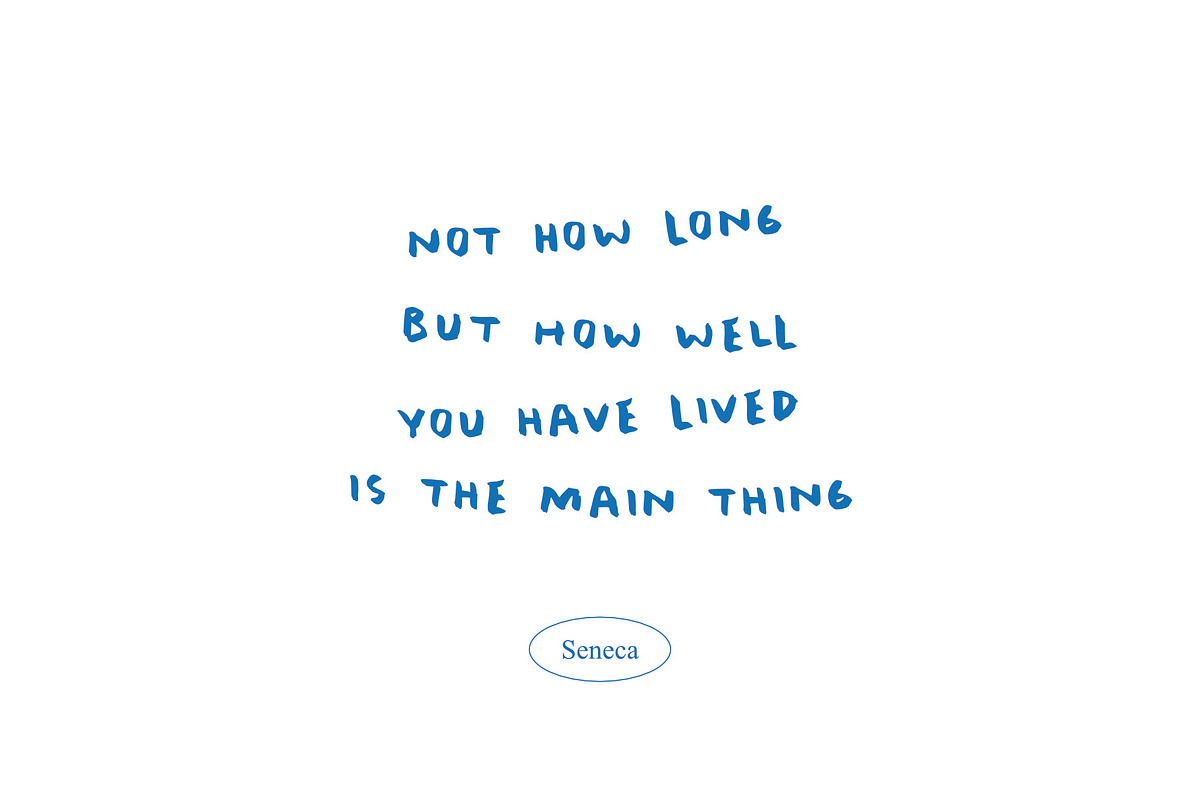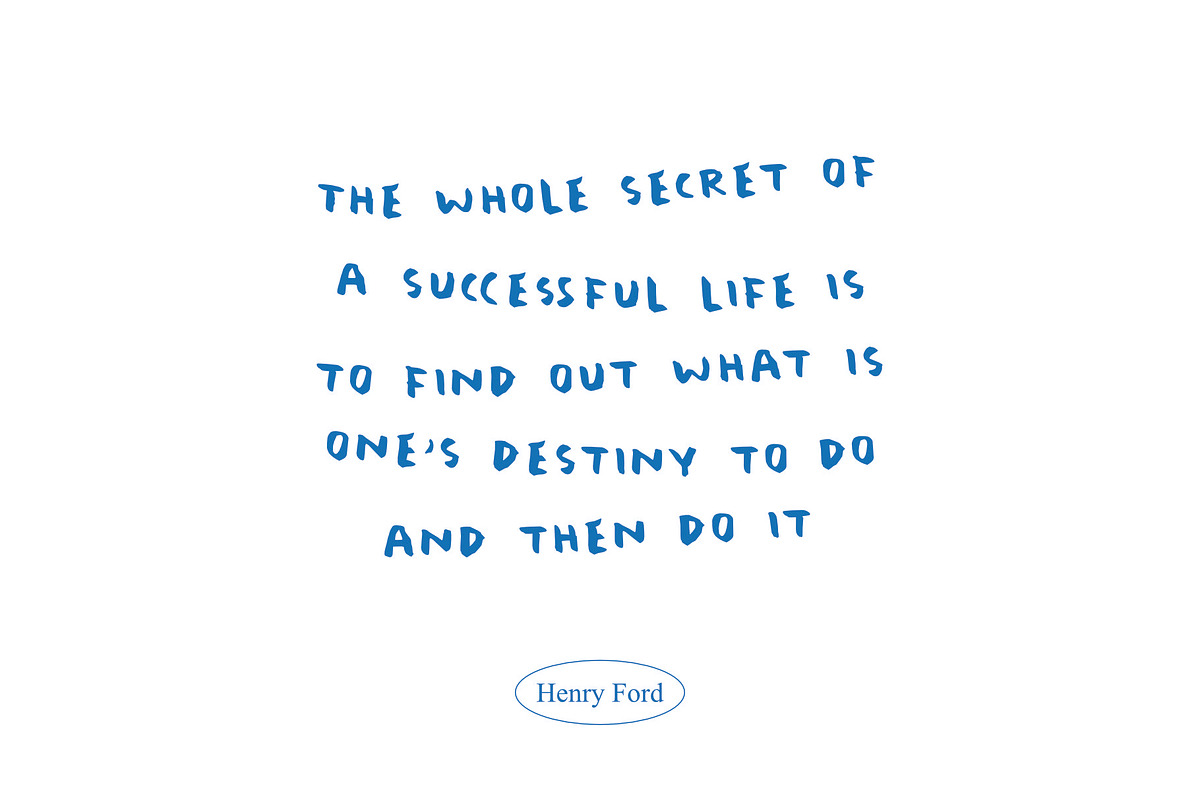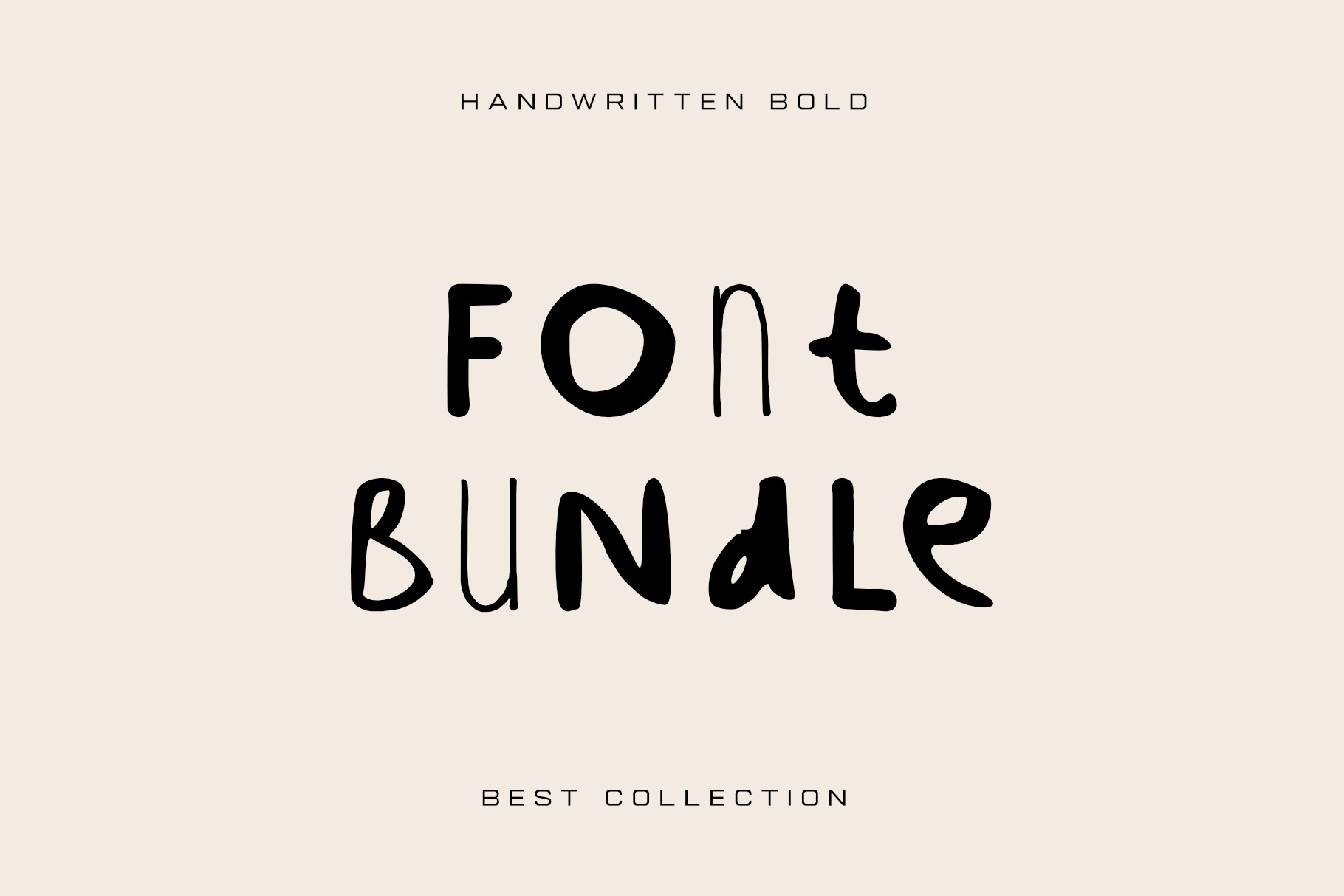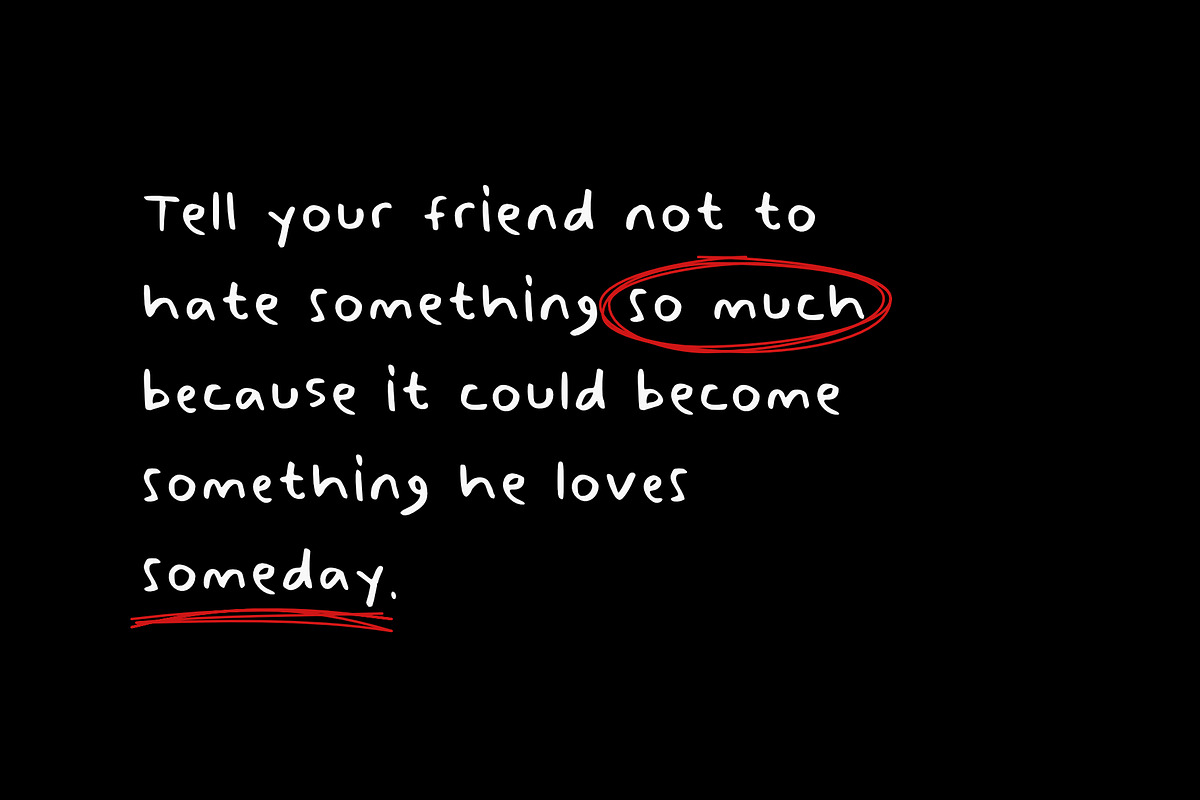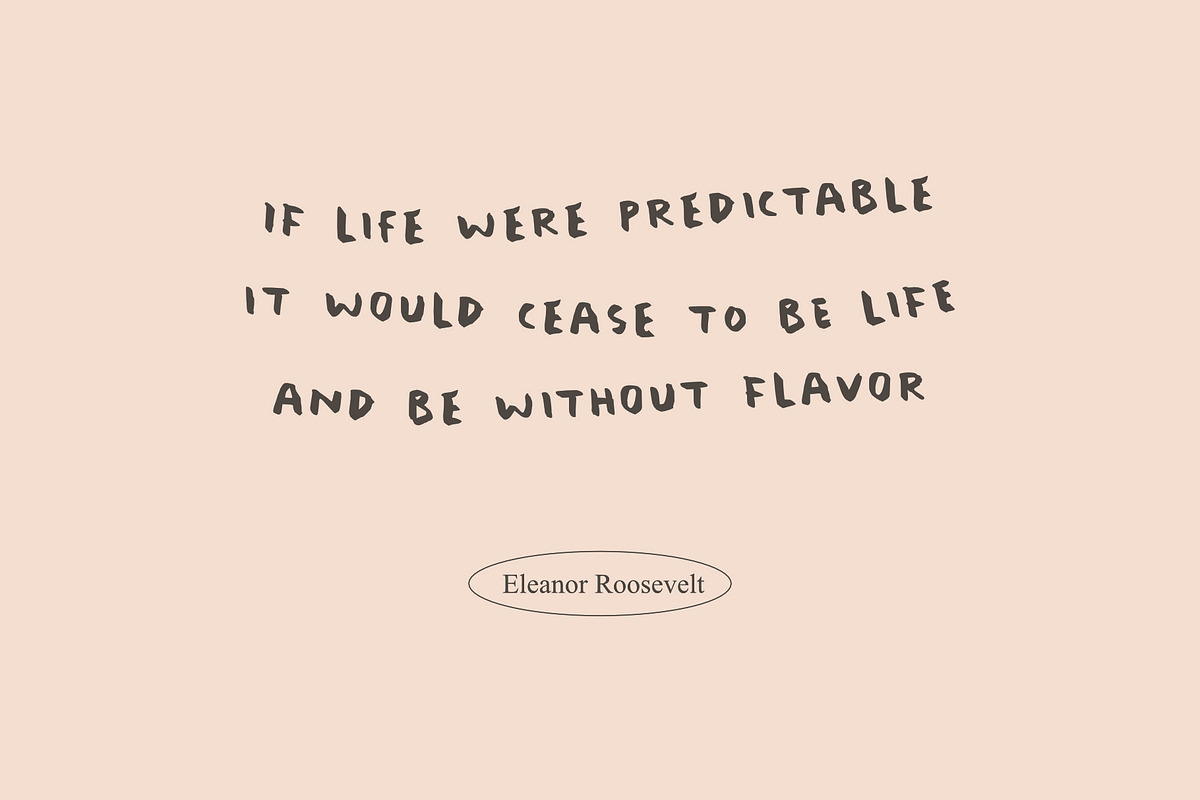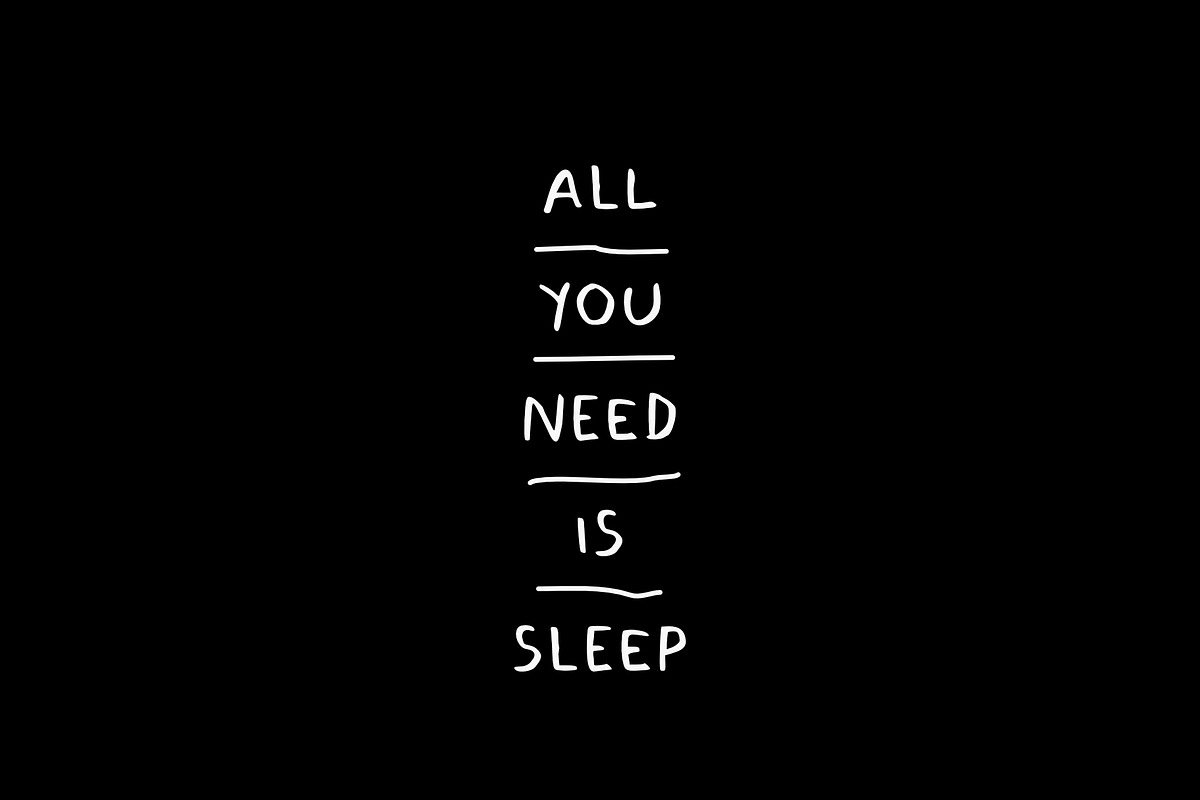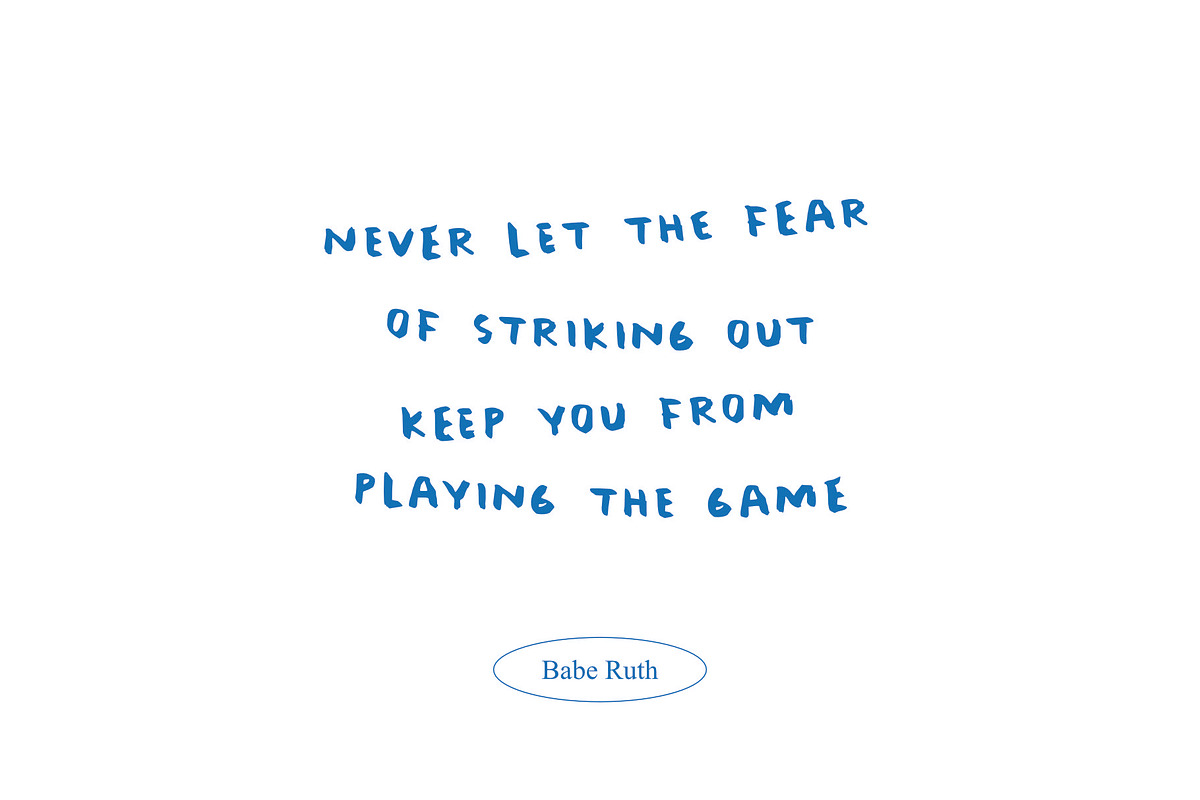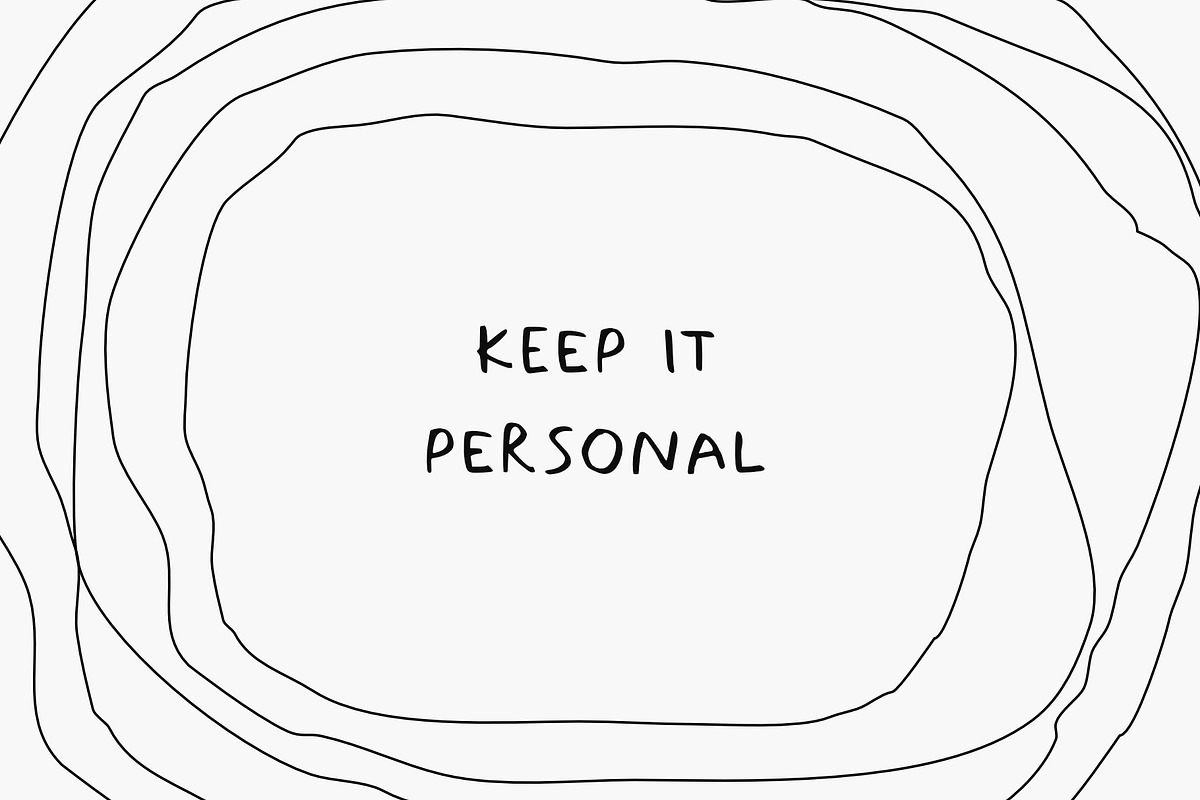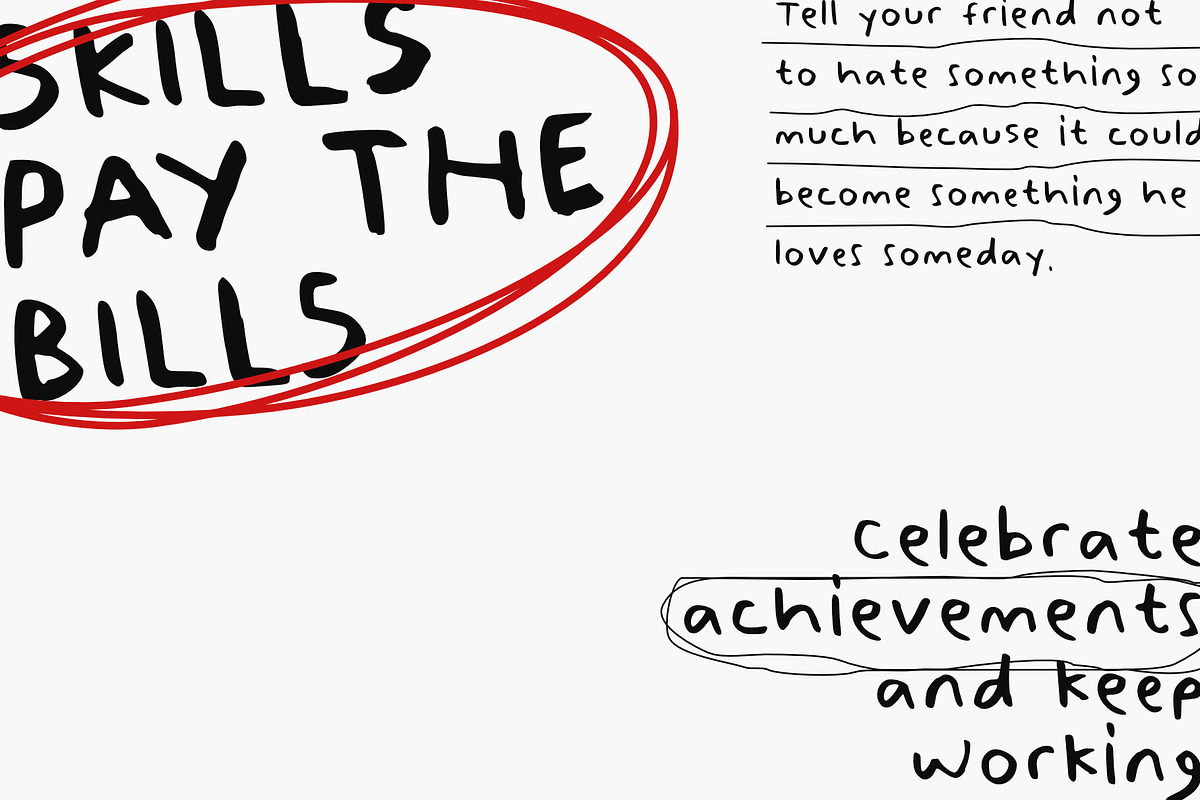
Handwritten bold fonts bundle
"Discover the Artistry of Handwriting with Our Exclusive Font Bundle!
Unlock the beauty of human expression with our extraordinary Handwriting Font Bundle, featuring a curated collection of over 10 unique and enchanting handwritten fonts. Crafted with precision and creativity, each font in this bundle captures the essence of individuality and personal touch, making them perfect for adding character and warmth to your projects.
Why Choose Our Handwritten bold fonts bundle?
Unparalleled Variety: With over 10 distinct handwriting fonts, you'll have a diverse selection of styles at your fingertips. From elegant scripts to playful doodles, our bundle has it all.
Endless Possibilities: Whether you're designing invitations, logos, social media graphics, or any other creative project, these fonts offer endless possibilities to infuse your work with authenticity and charm.
Versatile Application: Perfect for digital and print media, branding, advertising, and personal projects, these handwriting fonts will help you stand out in a world saturated with generic typography.
Indulge in the art of handwritten expression and elevate your designs with our Handwriting Font Bundle. Whether you're a graphic designer, marketer, or creative enthusiast, this bundle is your passport to a world of imaginative possibilities.
"Handwritten bold fonts bundle - Where Creativity Meets Typography Excellence."